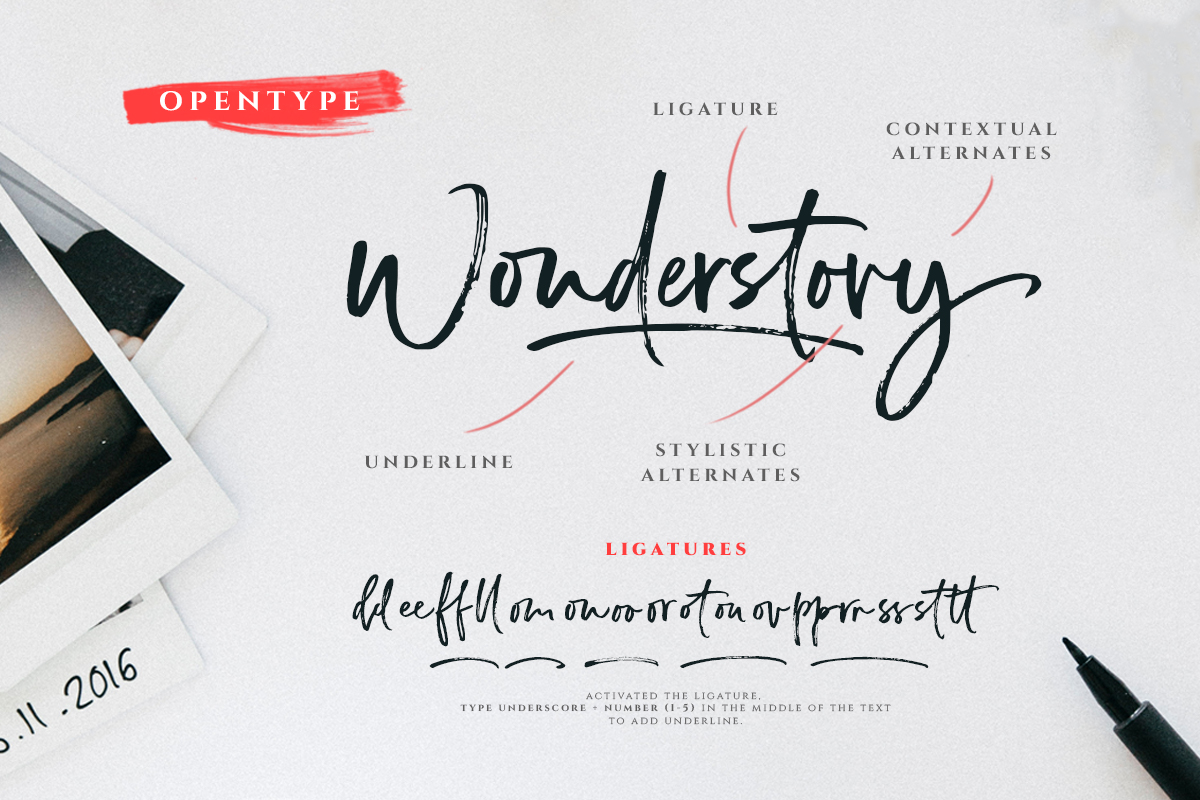
Wonderstory Font
Wonderstory Font is perfect for enchanting children's book covers, magical fairy tale illustrations, whimsical storytelling blog headers, imaginative creative writing materials, fantasy novel typography, dreamy bedtime story apps, wonder-filled educational resources, captivating library event graphics, mystical adventure game interfaces, and spellbinding narrative podcast covers. This magical typeface brings storytelling wonder to children's entertainment companies, creative writing schools, imagination-focused educational programs, fantasy publishing houses, and enchanting literary festival organizations.
Wonderstory Font is exciting because it captures the infinite magic and boundless imagination of storytelling through its enchantingly crafted letterforms that transport readers into worlds of wonder and possibility. The font features whimsical characters with fairy tale proportions and magical details that evoke the excitement of turning pages in a beloved storybook, the wonder of discovering new worlds, and the timeless magic of stories that capture hearts and inspire dreams. Its distinctive construction demonstrates narrative artistry with carefully crafted elements that create an immediate sense of wonder and storytelling authenticity. The font's magical presence and narrative authenticity make it perfect for brands seeking to communicate imagination, storytelling magic, and the transformative power of wonderful narratives in their visual communications.
Wonderstory Font family includes various magical styles: Light, Regular, Bold, Whimsical, Dreamy, Magical, Enchanted, Wonder, Condensed, Extended, Fantasy, and Storytelling variants. Each family member maintains the core wonder DNA while offering different levels of magic for diverse narrative design applications. The comprehensive font collection ensures consistent magical branding across storytelling campaigns, children's products, and imaginative communication materials.
Whether you're creating children's brand identities, designing storytelling marketing materials, developing imaginative website headers, or crafting wonder-filled promotional campaigns, Wonderstory Font delivers outstanding magical appeal and storytelling authenticity. The font's distinctive whimsical personality excels in children's logos, fantasy packaging design, narrative applications, and creative projects where storytelling wonder and imaginative magic are essential.